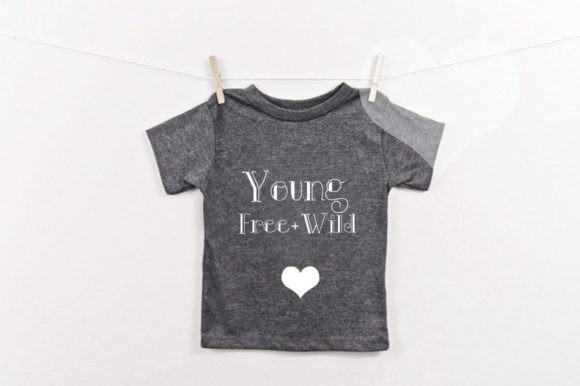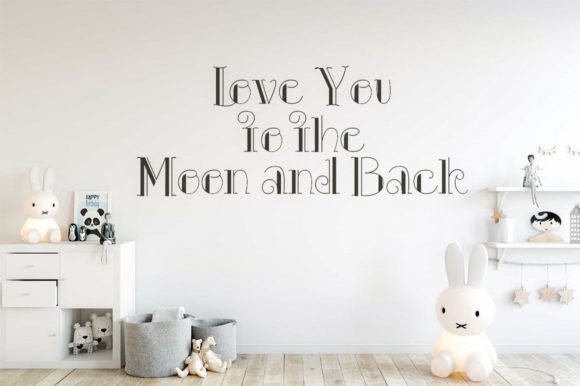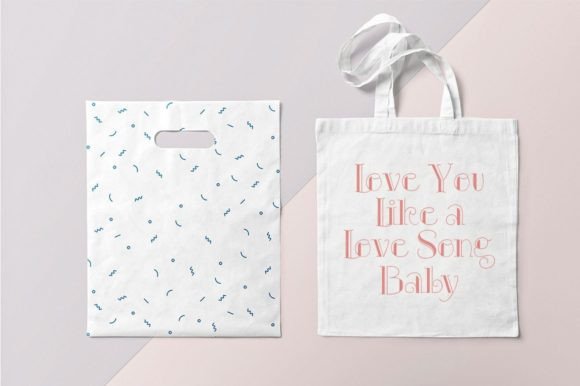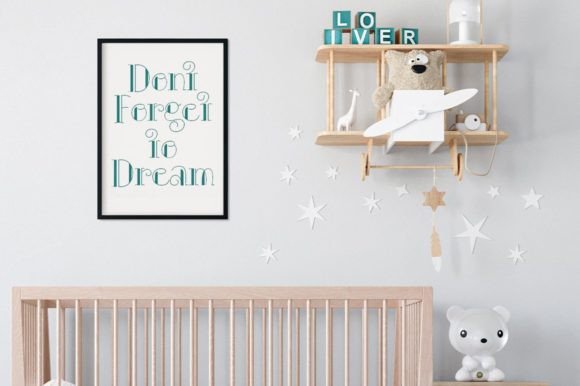
Introduction to Mini Honysa Font Font
Fonts play a crucial role in design, and the Mini Honysa Font font is a typeface that brings both character and versatility to any project. Whether you’re working on a branding project, a website, or a print design, the Mini Honysa Font font offers a unique style that can elevate your work.
Mini Honysa is a modern look perfect for branding, invitations, stationery, wedding designs, social media posts, advertisements, product packaging, product designs, labels, photography, watermarks, special events, and more.
Key Features of Mini Honysa Font Font
Why Choose Mini Honysa Font Font?
The Mini Honysa Font font is more than just a typeface – it’s a design tool that helps you communicate your message with style and clarity. Its unique character set and versatile design make it suitable for a wide range of applications, from elegant invitations to bold headlines.
With its carefully crafted letterforms and balanced proportions, the Mini Honysa Font font ensures readability and visual appeal across all mediums.
What makes Mini Honysa Font font special?
The Mini Honysa Font font stands out with its unique design, exceptional readability, and versatility across various design applications.